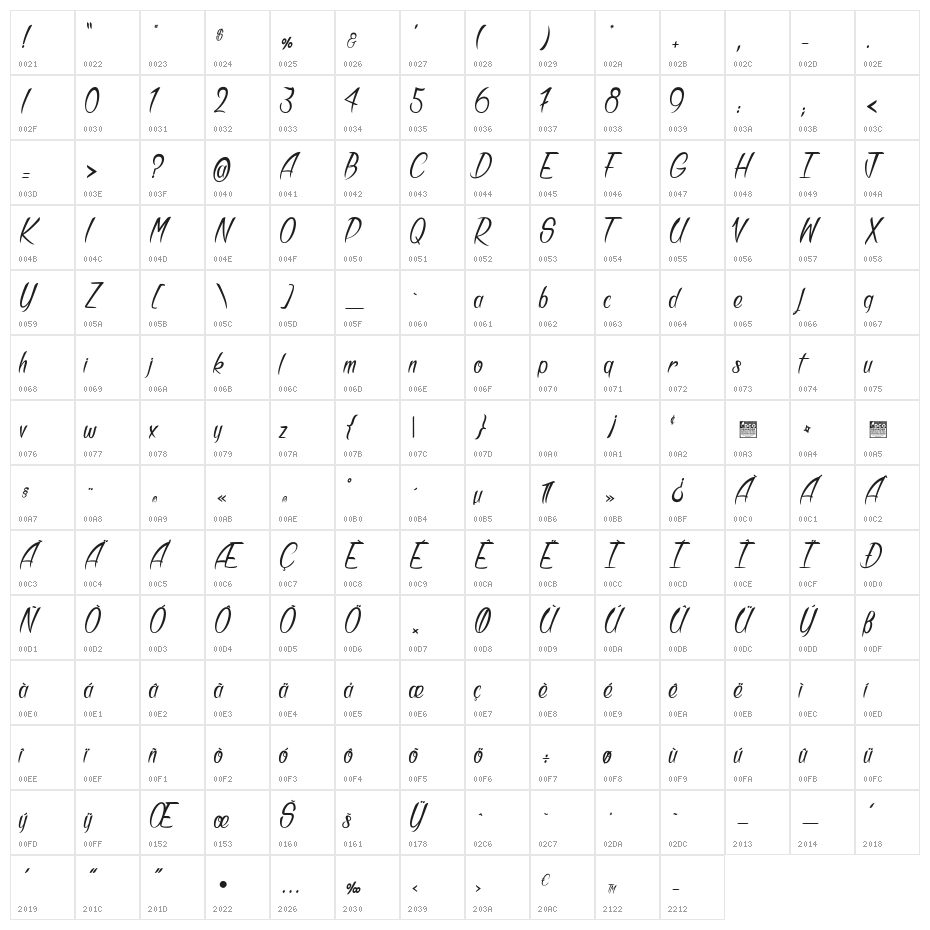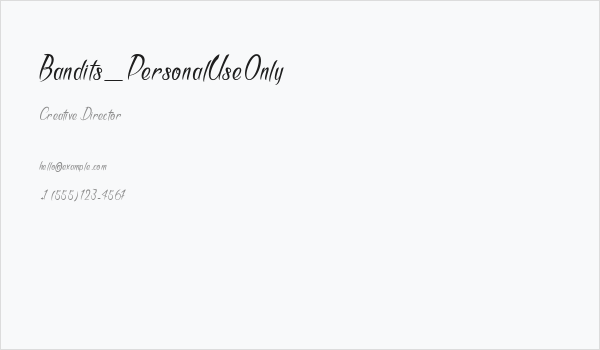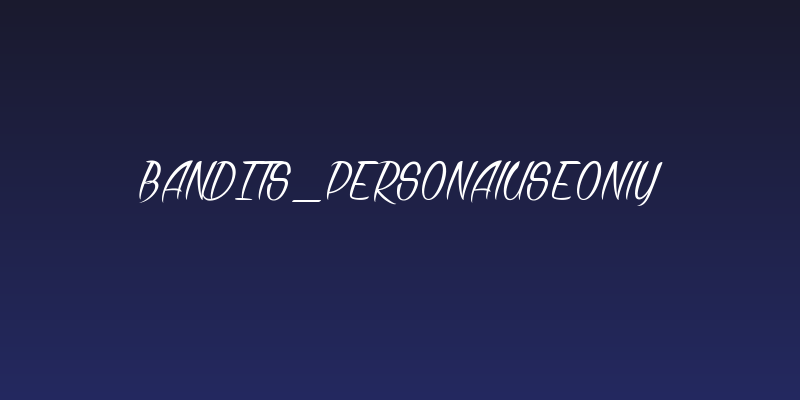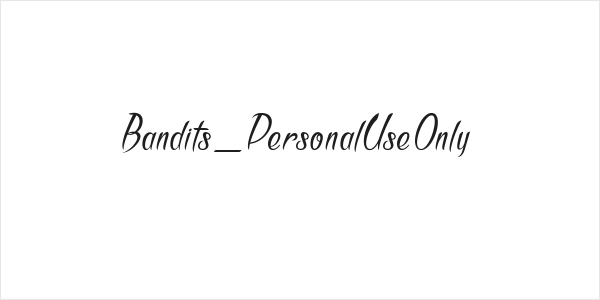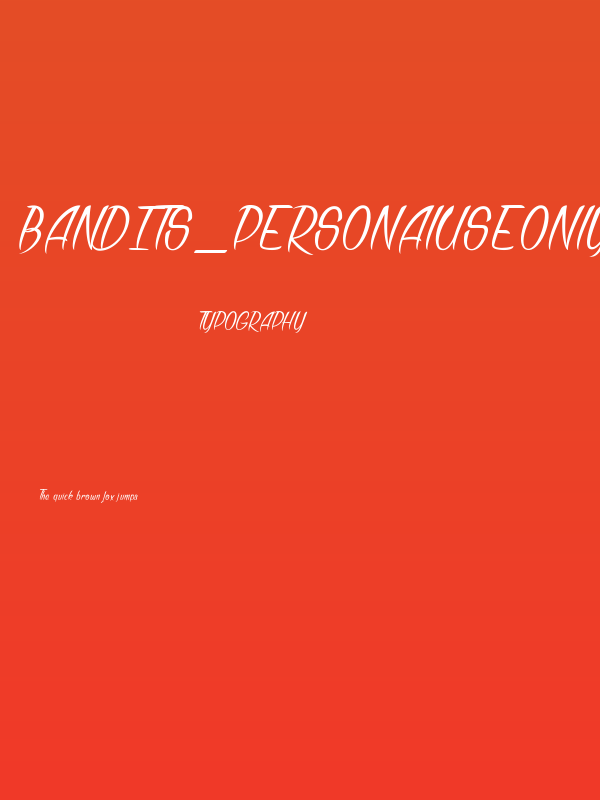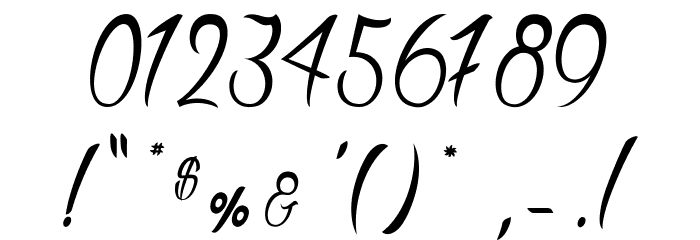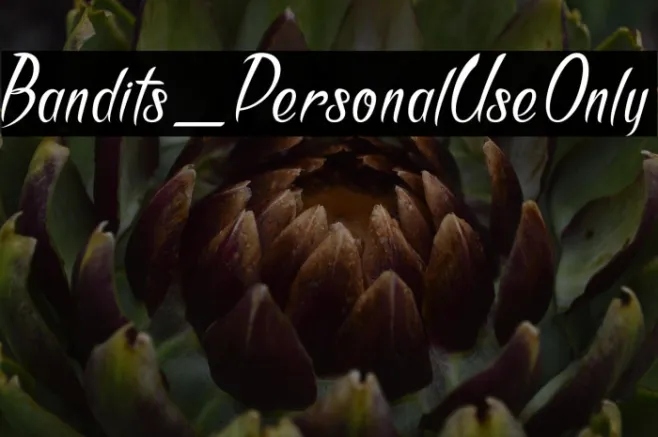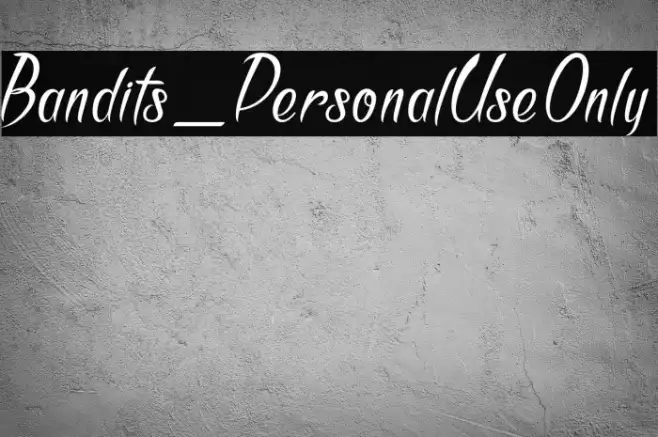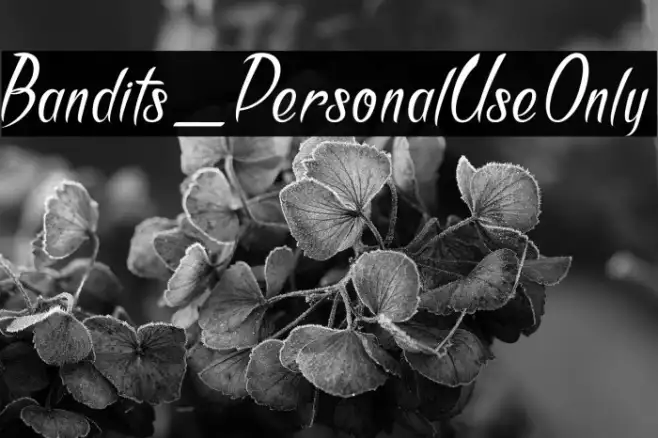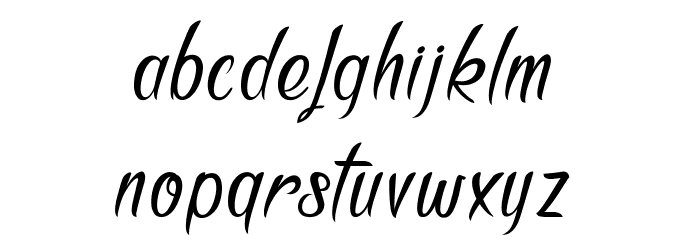
Bandits_PersonalUseOnly Font
Bandits_PersonalUseOnly Description
This font features a dynamic and flowing script style, characterized by its elegant curves and slightly slanted letters. The uppercase letters are bold and prominent, while the lowercase letters maintain a consistent flow, enhancing readability. The numerals are distinct and well-proportioned, complementing the overall aesthetic. Special characters are thoughtfully designed, maintaining the font's cohesive look. The font's style is reminiscent of handwritten calligraphy, offering a personal and artistic touch. Its unique flair makes it suitable for creative projects that require a touch of sophistication and elegance.